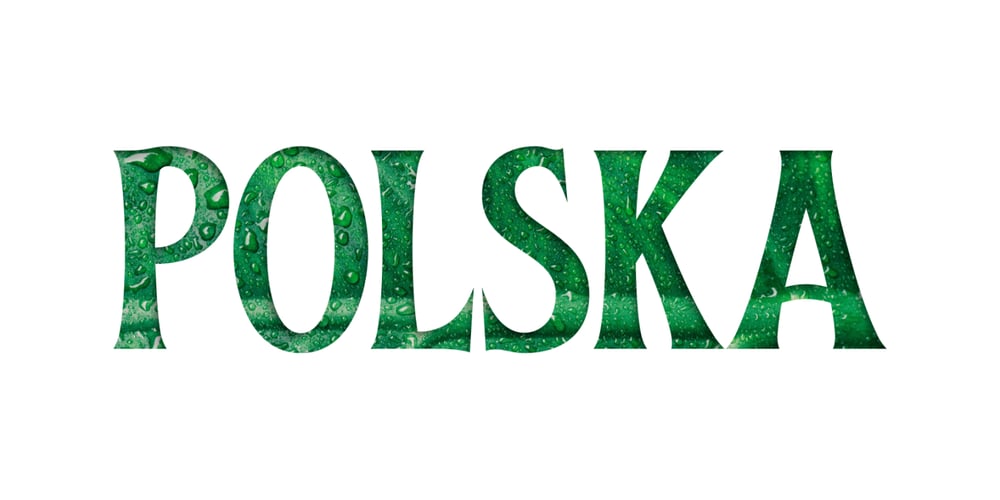
Obsypac
Obsypac font
Obsypac Font Family was designed by Fahrizal Tawakkal and published by Fontdation. Obsypac contains 2 styles and family package options. Introducing Obsypac, our latest vintage serif. Inspired by the old lettering/signpainting, refined to make it relevant in this modern era. This all-caps font will give a strong and clean look on your design, make it work perfectly for headlines, logos/logotypes, labels and packagings, t-shirt designs, etc. If you’re a fan of classic typography, make sure you add this font to your design toolbox.